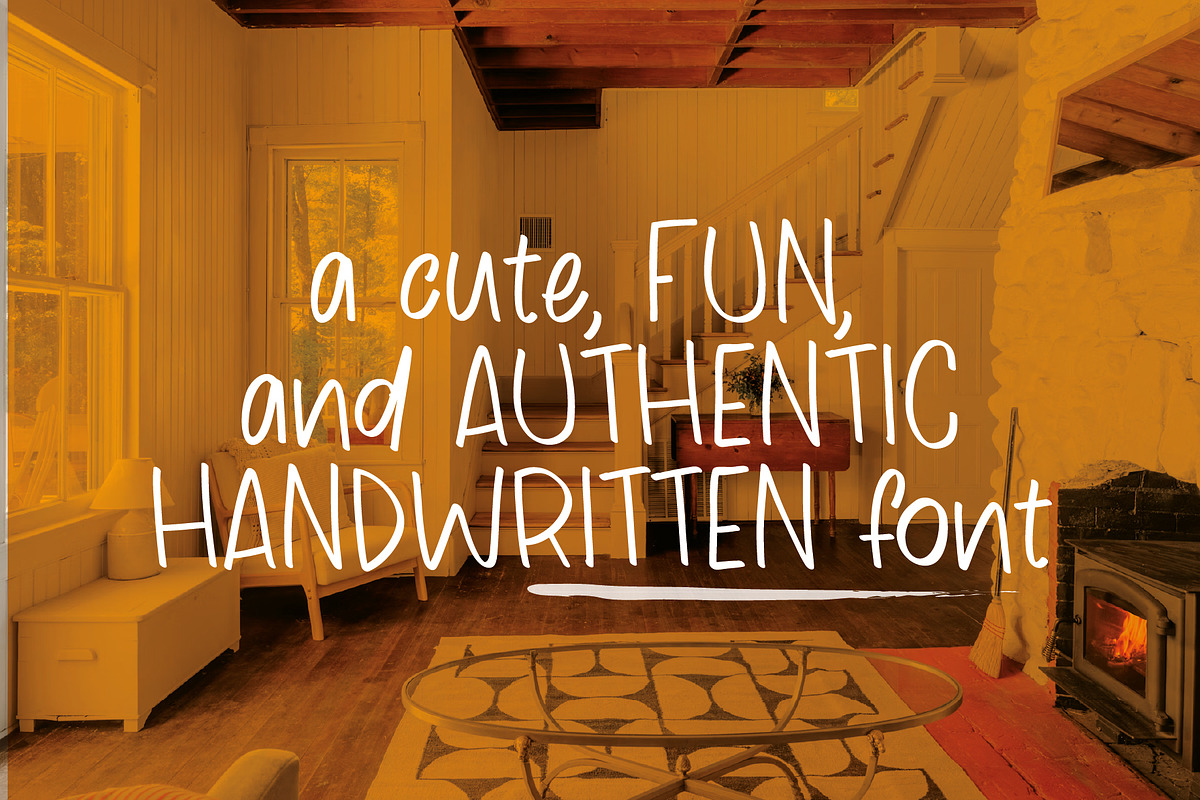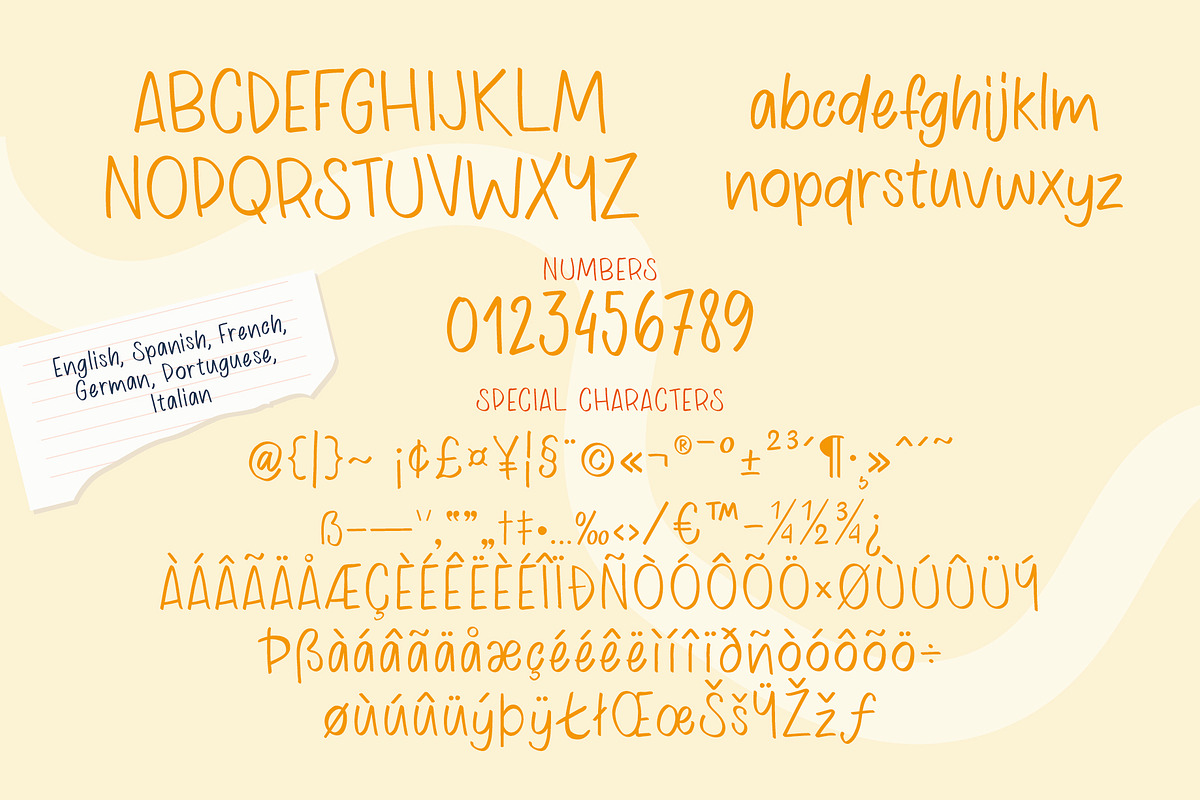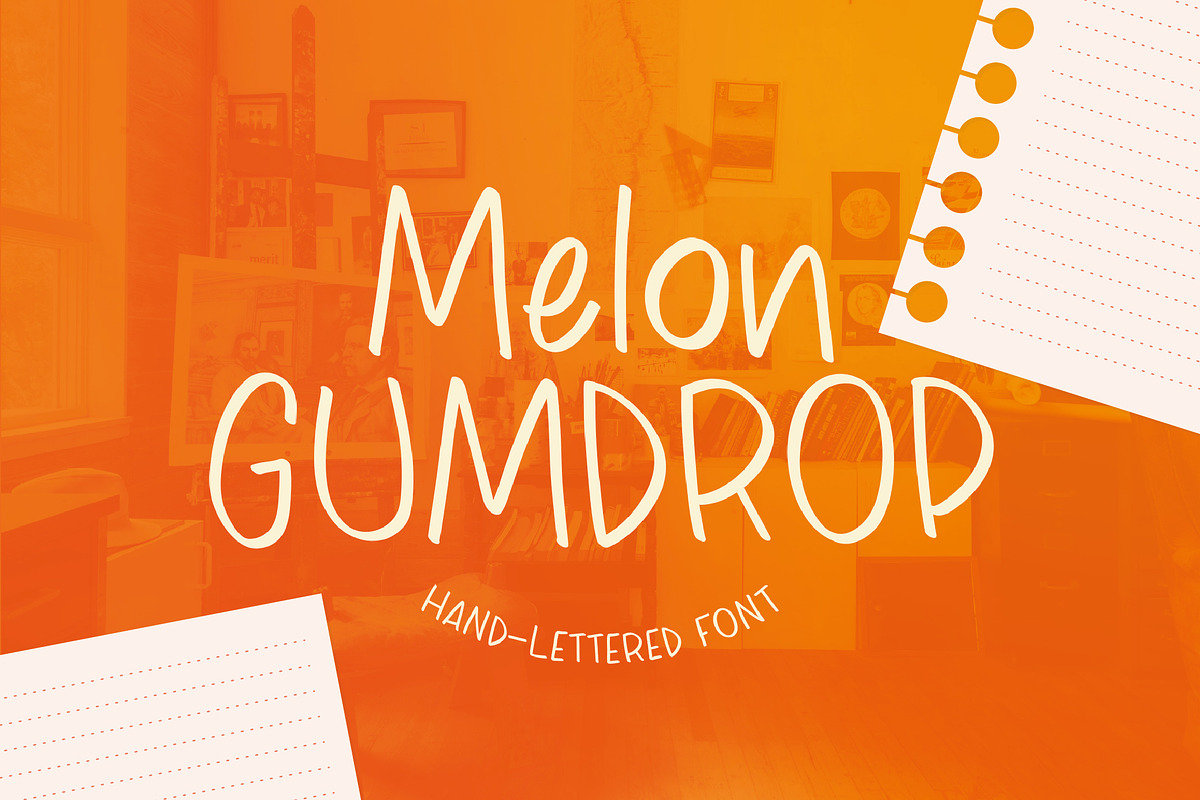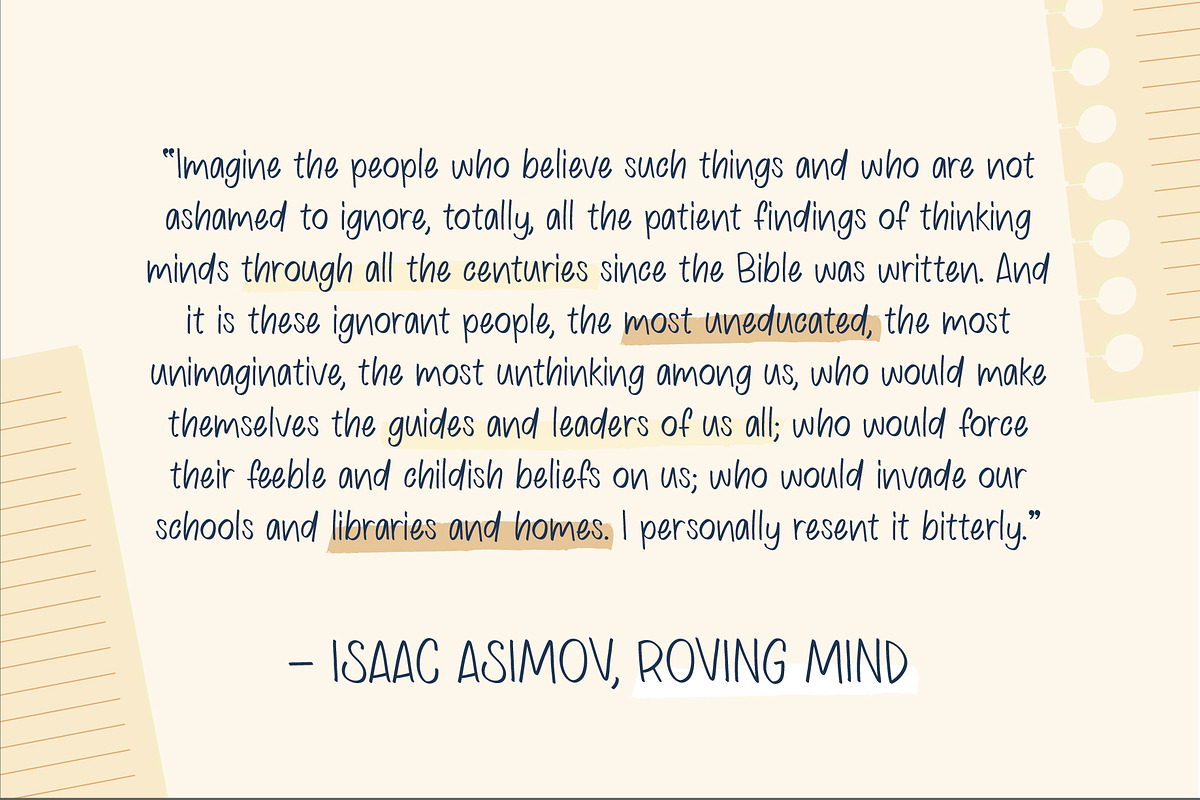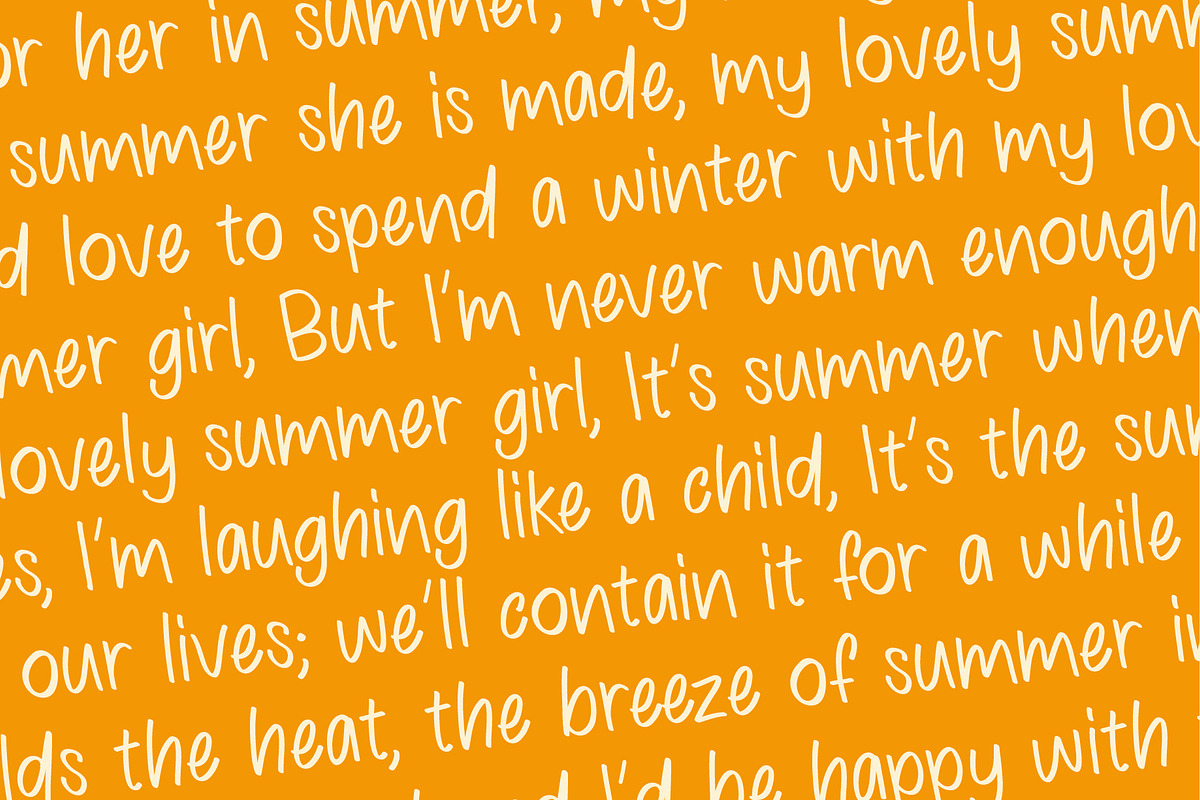
Melon Gumdrop - Handwritten script
Melon Gumdrop is a playful handwritten font with a light, carefree summer feel. Perfect for branding, packaging, social media, invitations, greeting cards, and cheerful seasonal designs, it adds a fresh, fun touch to any project.
Uppercase and lowercase letters
Special characters
Numerals, punctuation, and symbols